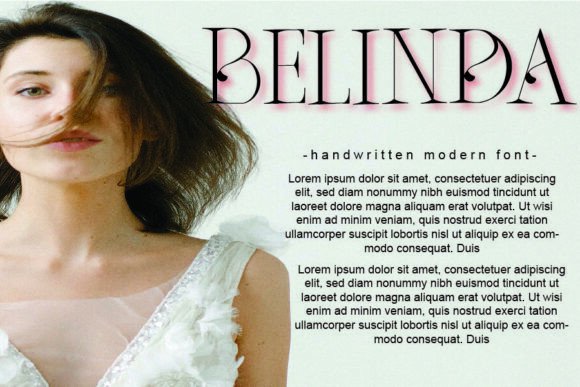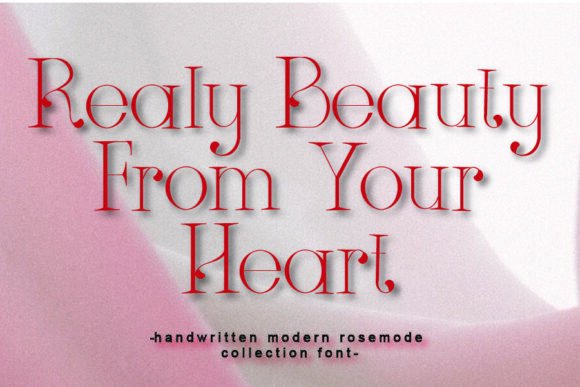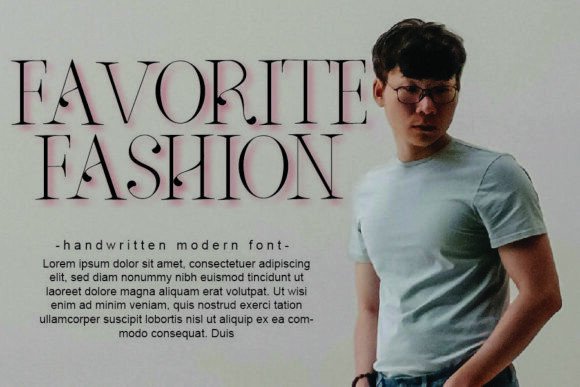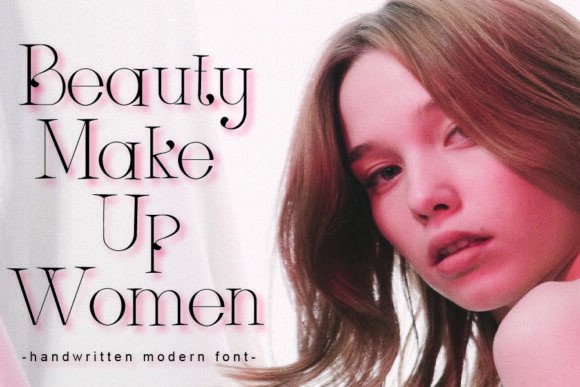
Introduction to Rosemode Font
Introducing Rosemode — an elegant, handwritten-serif font brimming with feminine charm.
Its eye-pleasing design lends itself consummately to a multitude of creative applications Enthralling in its versatility, Rosemode’s allure transforms ordinary wedding invitations to captivating works of art, raises stationary aesthetics to new heights, and inspires social media posts that command attention.